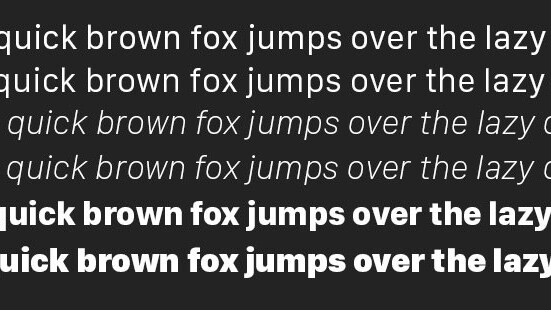
Meet Apple’s new font, designed for its smartwatch
Today, Apple announced its developer tools for its forthcoming Watch which included a number of resources and tools for developers to get started building apps.
Quietly included in the human interface guidelines is a new font dubbed “San Francisco” that’s designed for use on the Apple Watch.
The font, which the company is giving away for free, is a Sans Serif typeface designed with the Apple Watch in mind. On the company’s human interface page, it says:
The system font was designed specifically for legibility on Apple Watch. At large sizes, the font’s slightly condensed letters are set tight to take up less horizontal space. But at small sizes, they are spaced more loosely and have bigger apertures in glyphs like ‘a’ and ‘e’ to make these easier to read at a glance.
Punctuation is also proportionally larger when the font gets smaller. And as text size changes, Apple Watch dynamically switches between fonts to maintain clarity and legibility at all times.
The font comes in two styles, “Regular” and “Display” which Apple recommends switching between based on what size will be used on the Watch display.
Whether by coincidence or intentionally, Apple had another font called San Francisco previously that was one of the first fonts to ship with the Macintosh.